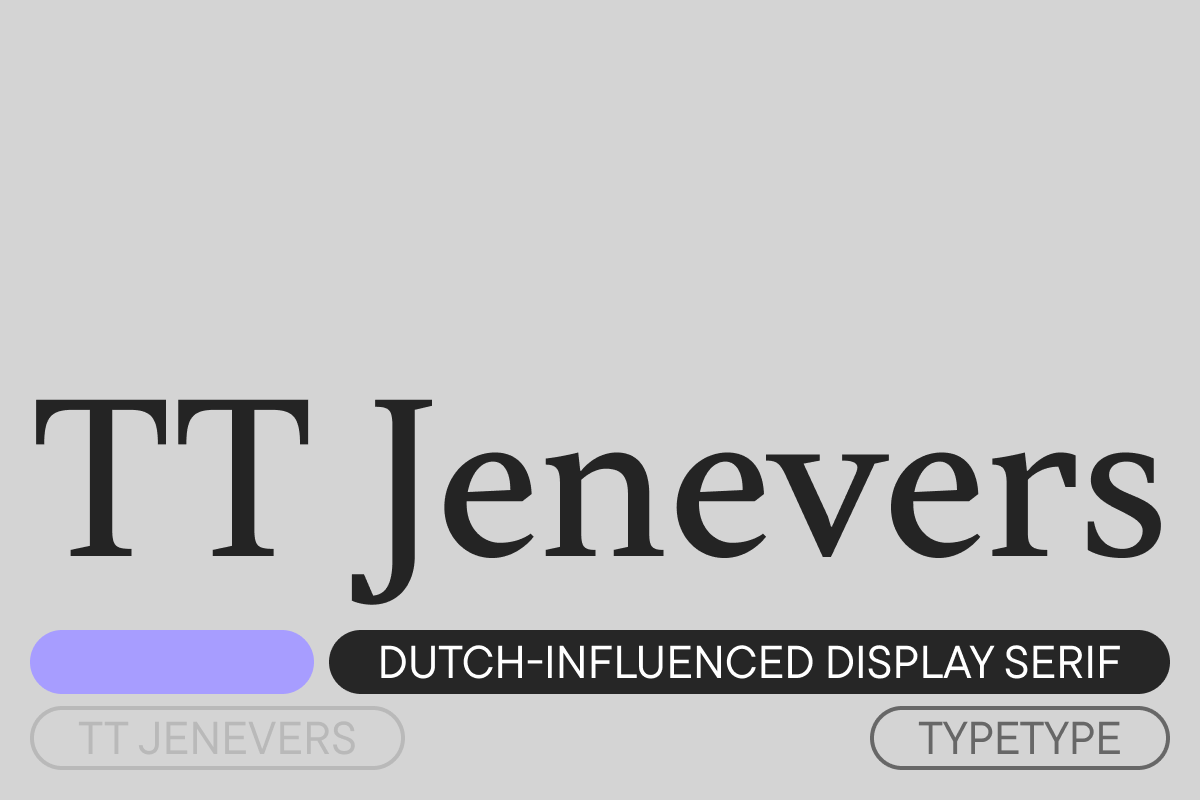
TT Jenevers Bold Italic
TT Jenevers is a modern Dutch-inspired serif font with distinctive asymmetrical serifs and irregular oval slants (visible in letters like "p-q" but absent in "o"). Its large lowercase and uppercase characters give it display qualities, while generous half-ellipses prevent crowding in text settings. The slightly narrower italics ensure better text density. A versatile blend of personality and readability.